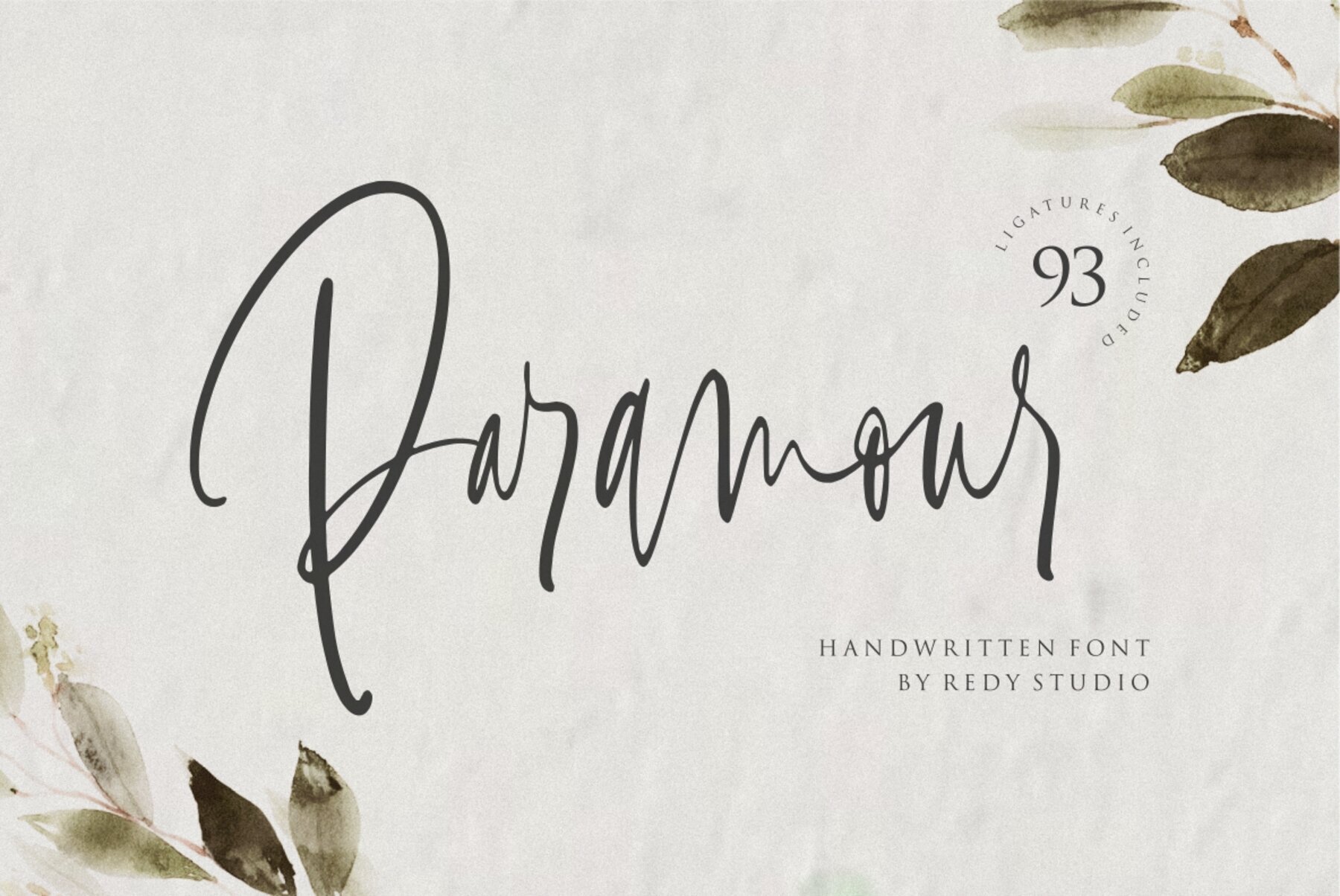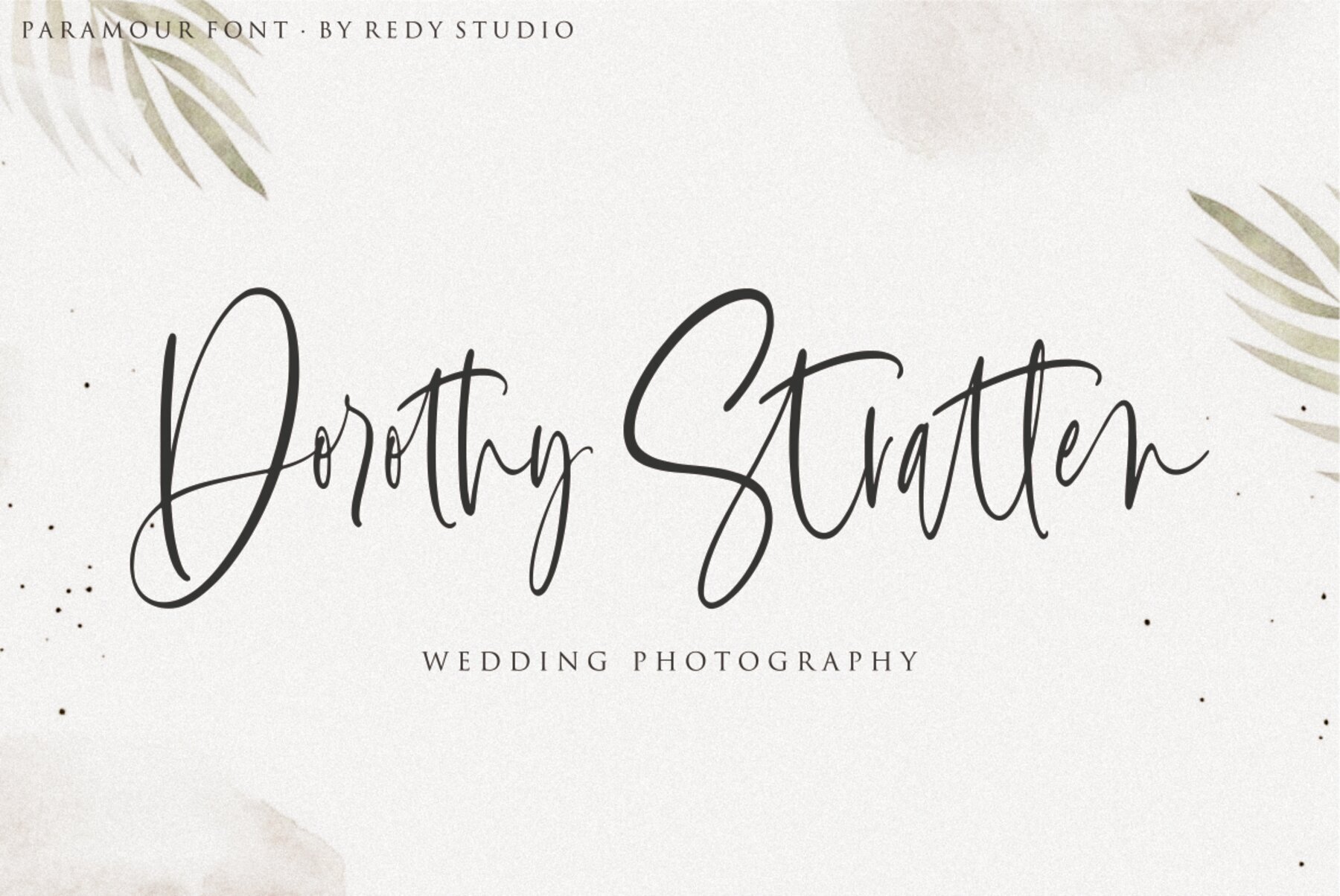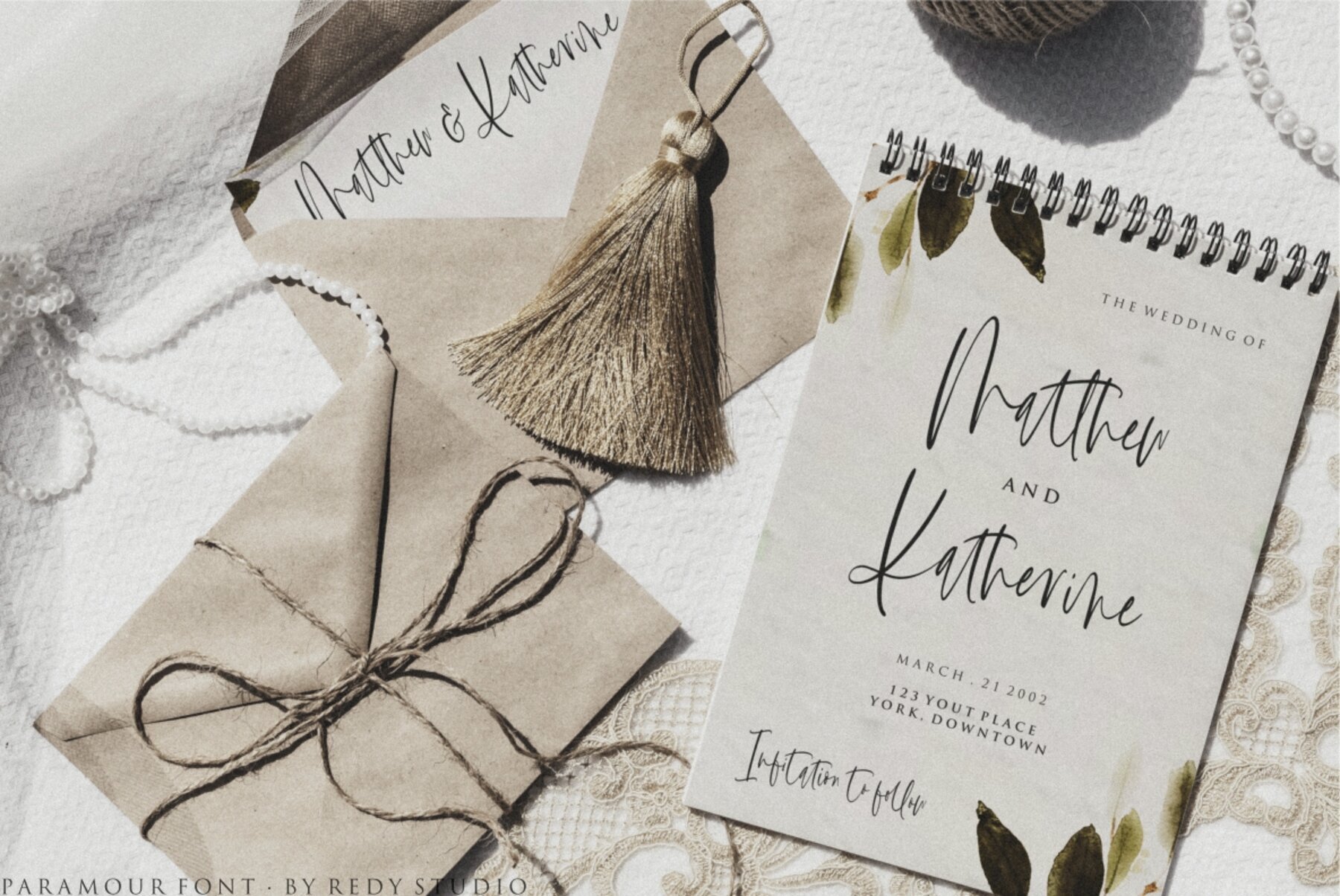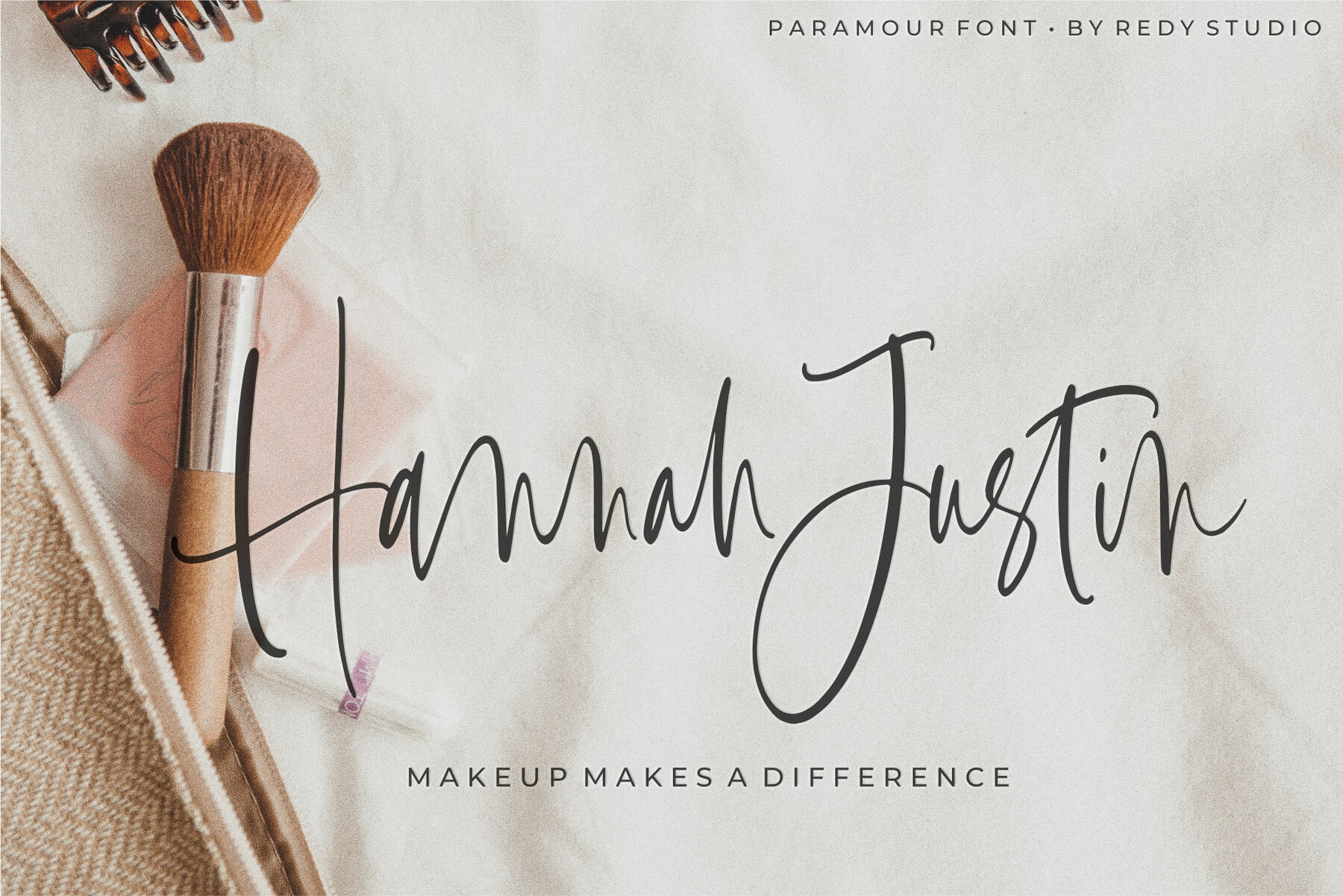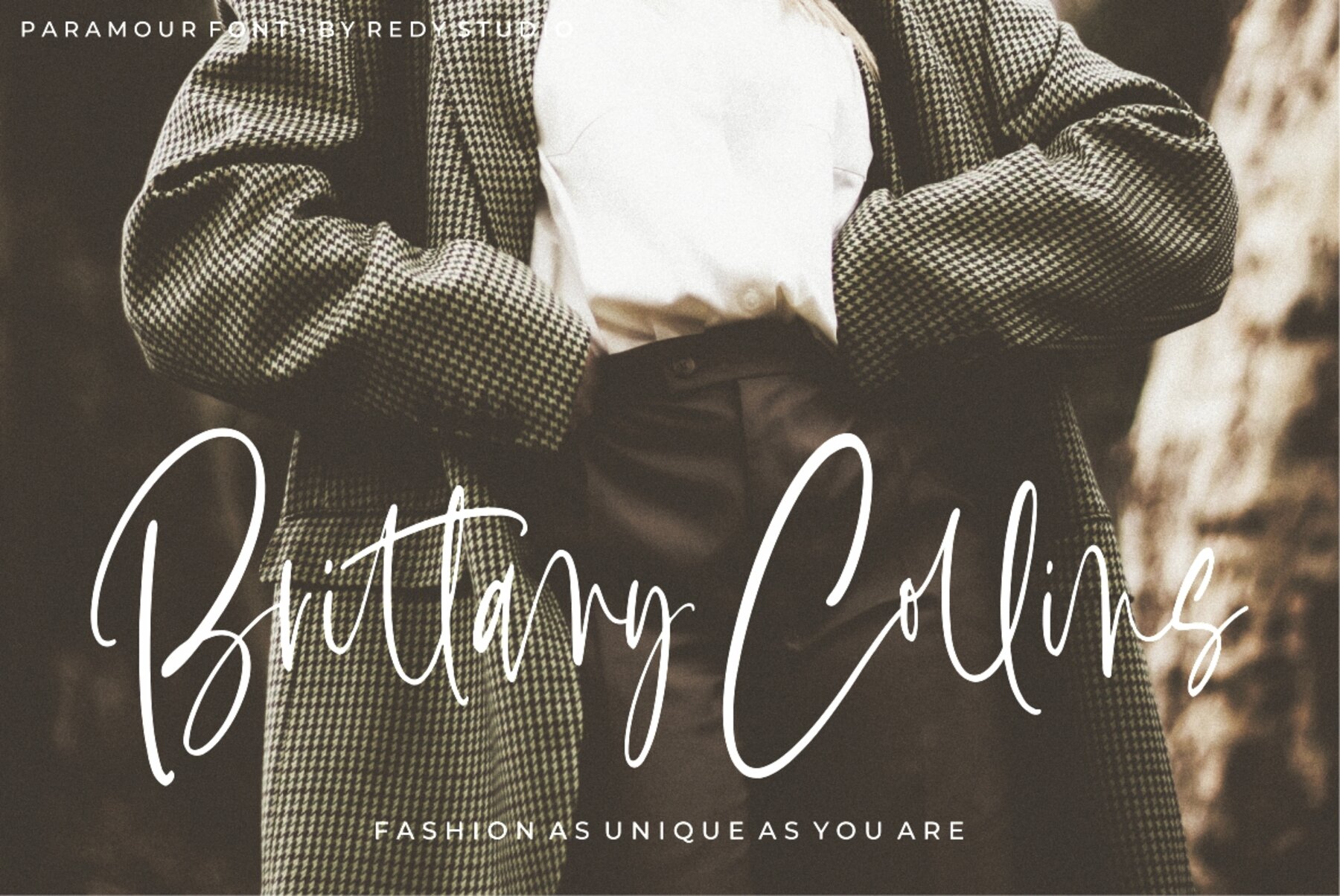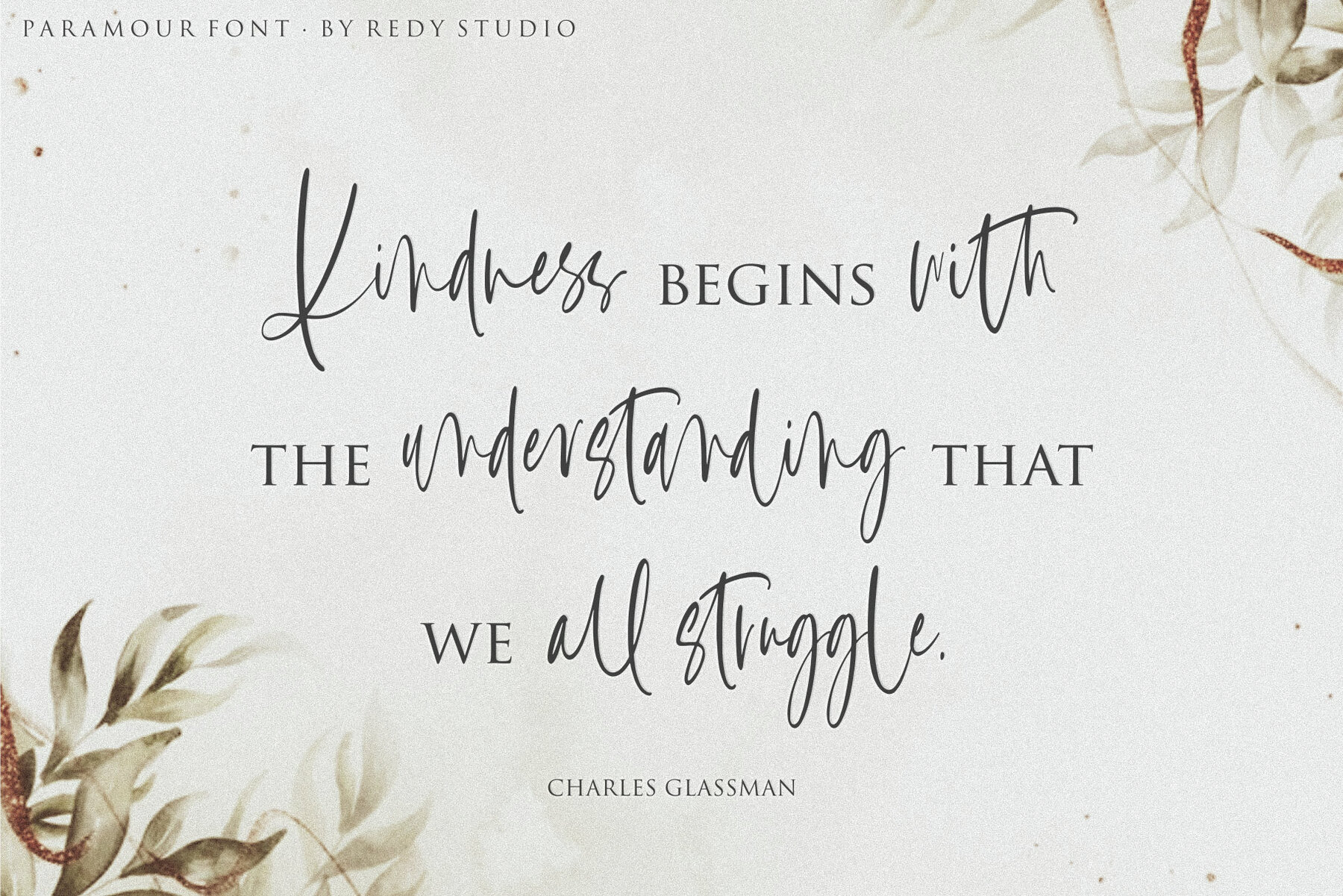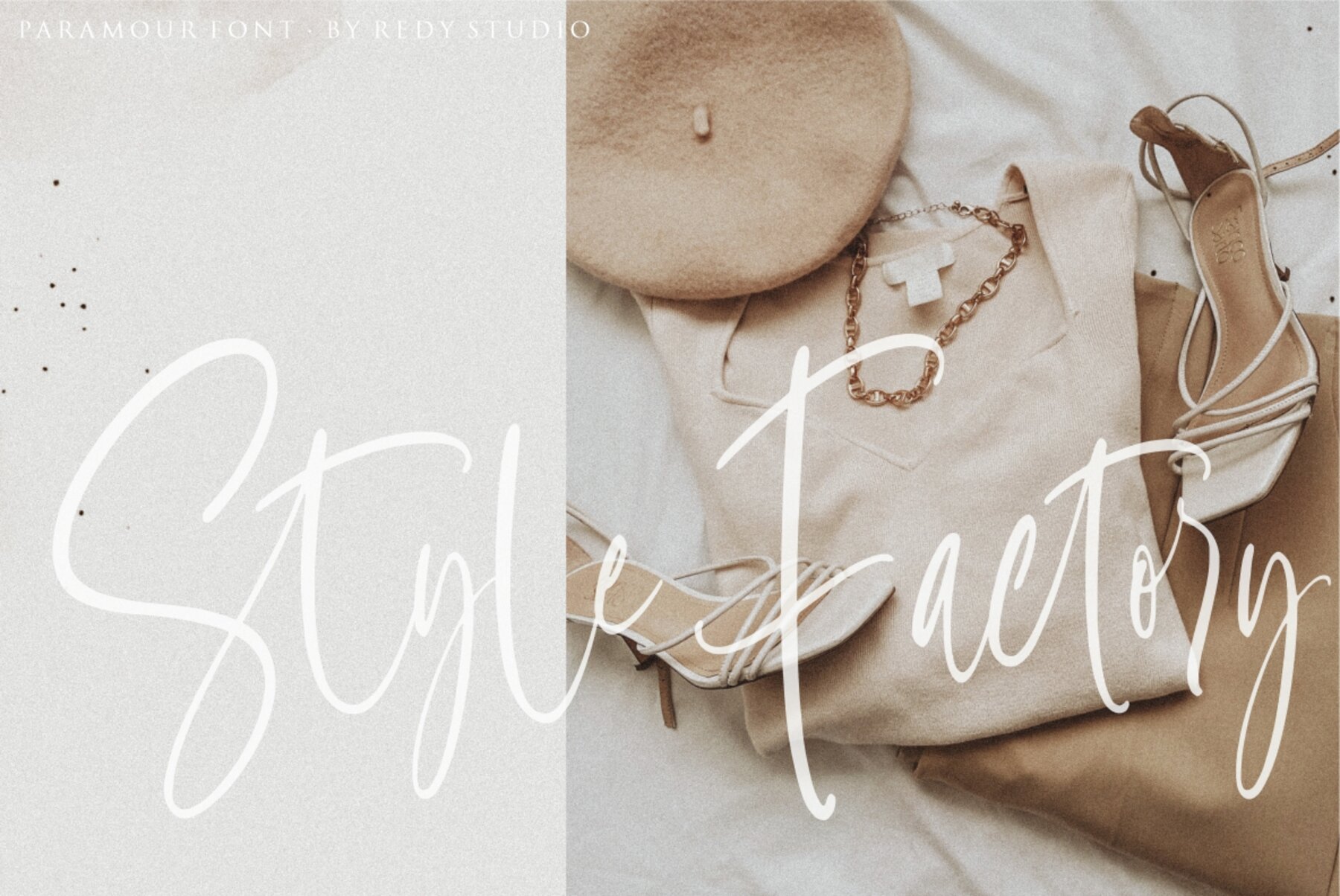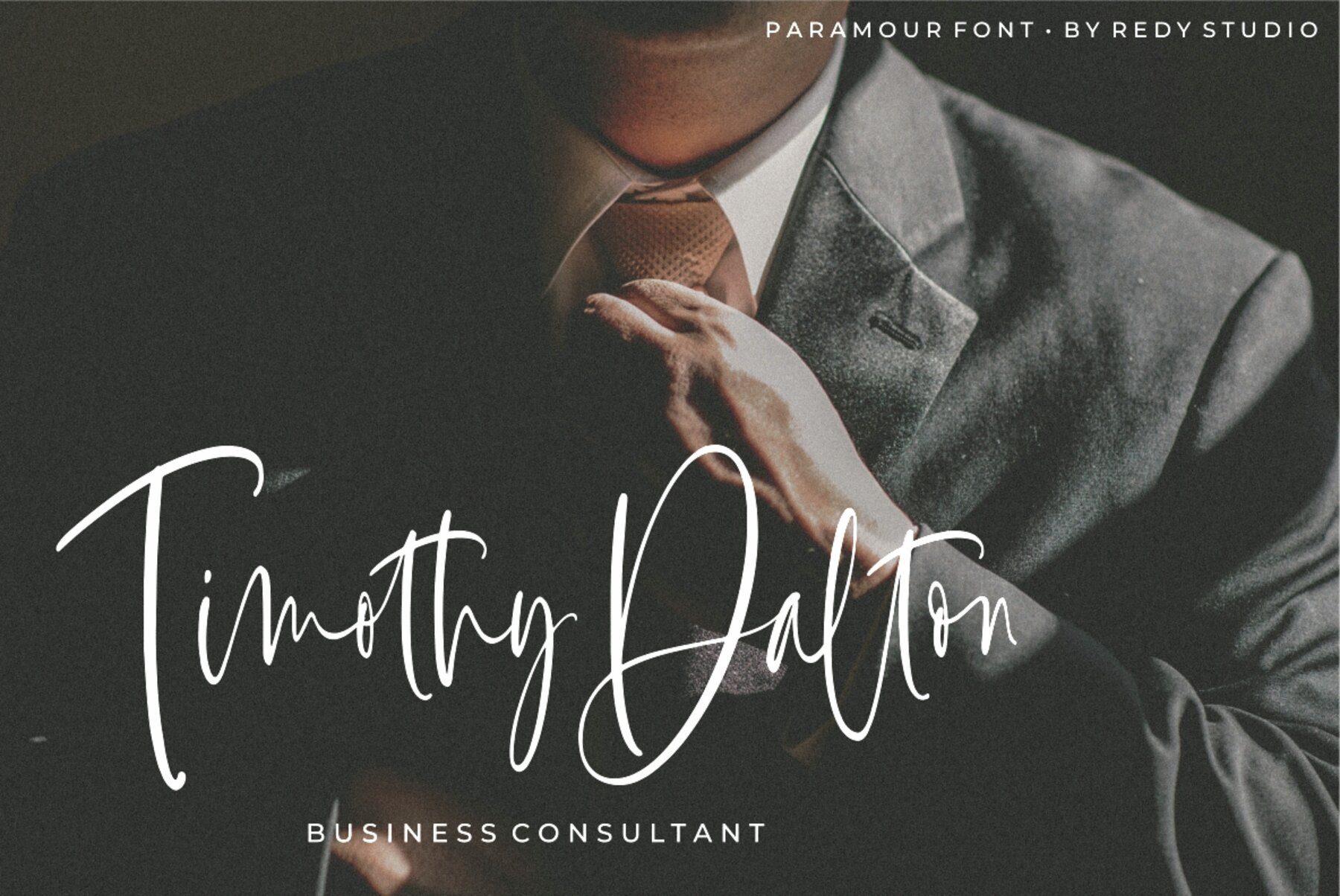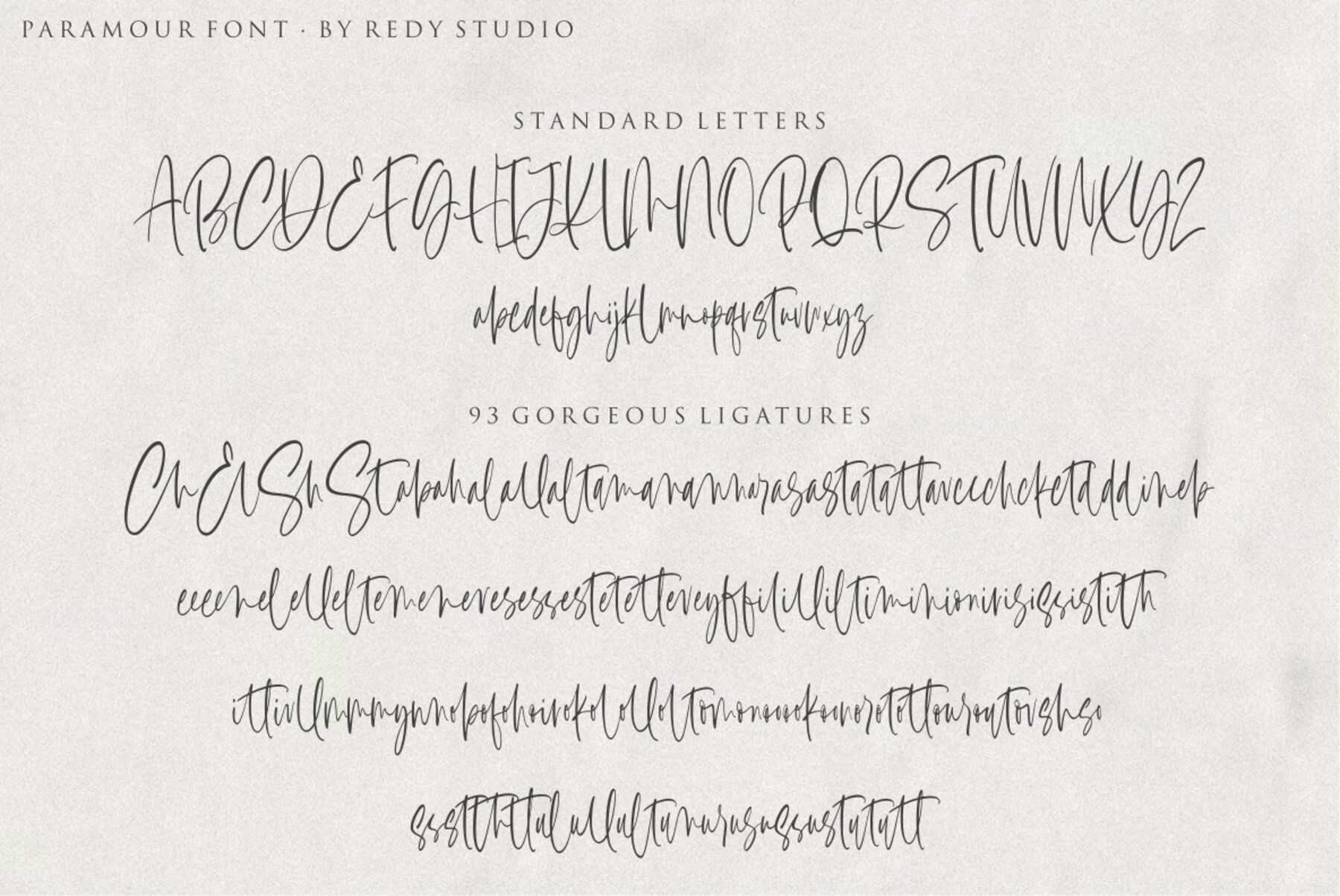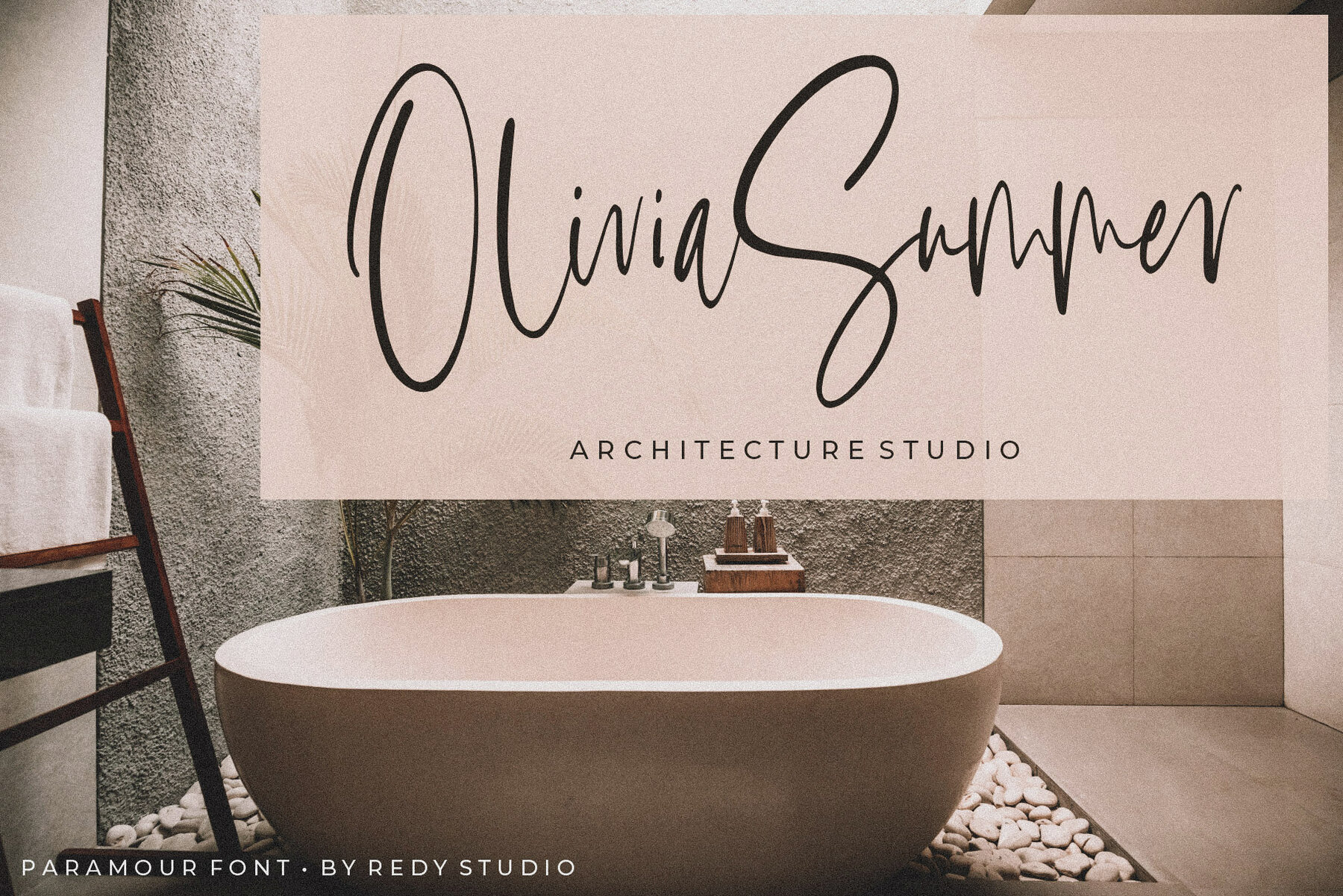
Paramour Font
Paramour Regular
Paramour is a captivating handwritten font that brings a touch of flirty elegance to your projects. It's ideal for creating ink-styled logos, wedding stationery, photographer watermarks, or adding a personal handwritten touch to your website's typography. With Paramour, you'll enjoy a complete set of beautifully crafted uppercase and lowercase letters, numerals, a wide range of punctuation, and an impressive 93 ligatures. Every aspect of this handcrafted typeface has been designed to fit together seamlessly. Thank you for exploring Paramour! Enjoy the charming elegance it brings to your designs.Paramour: Handwritten Elegance
Paramour Features